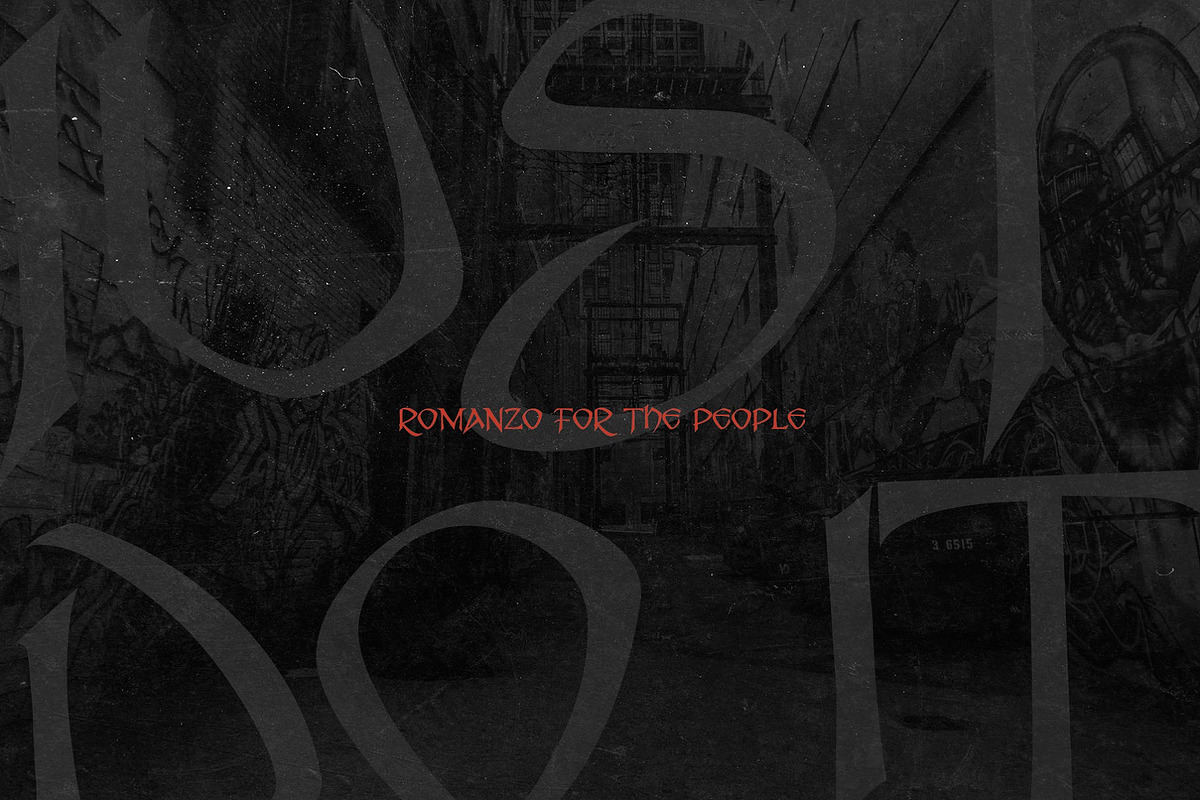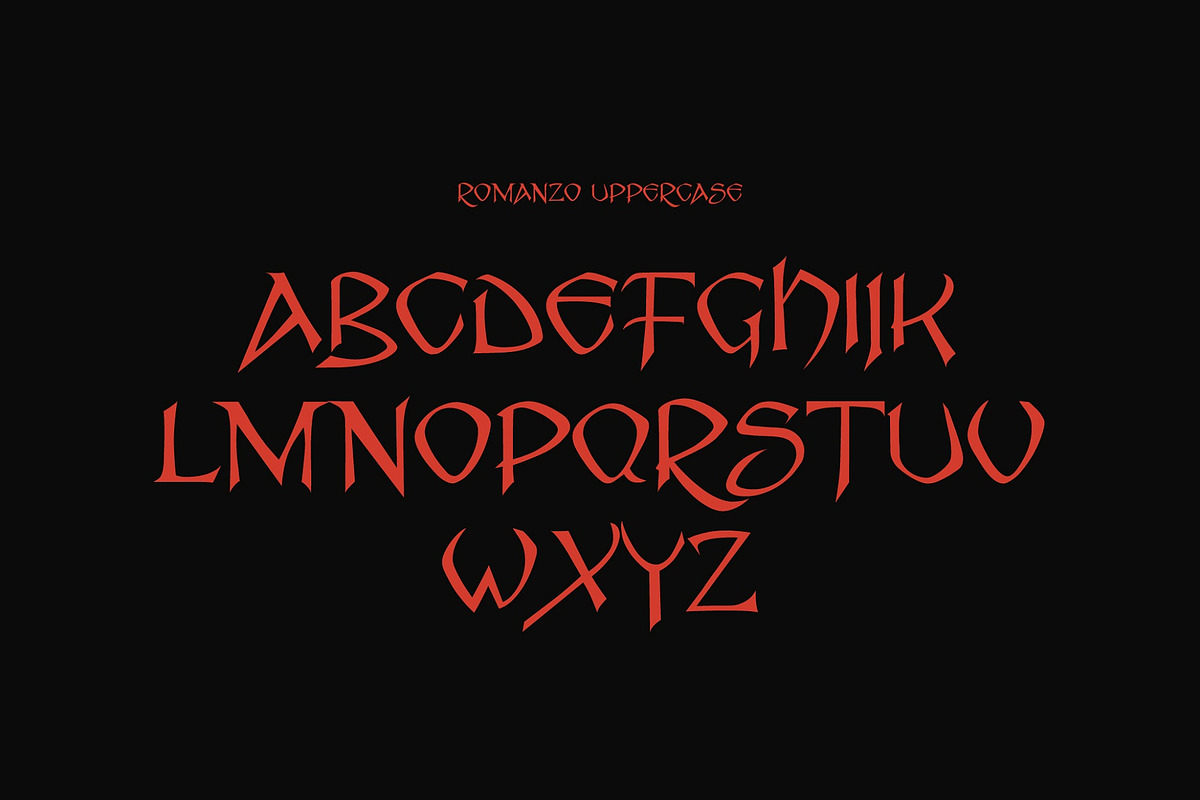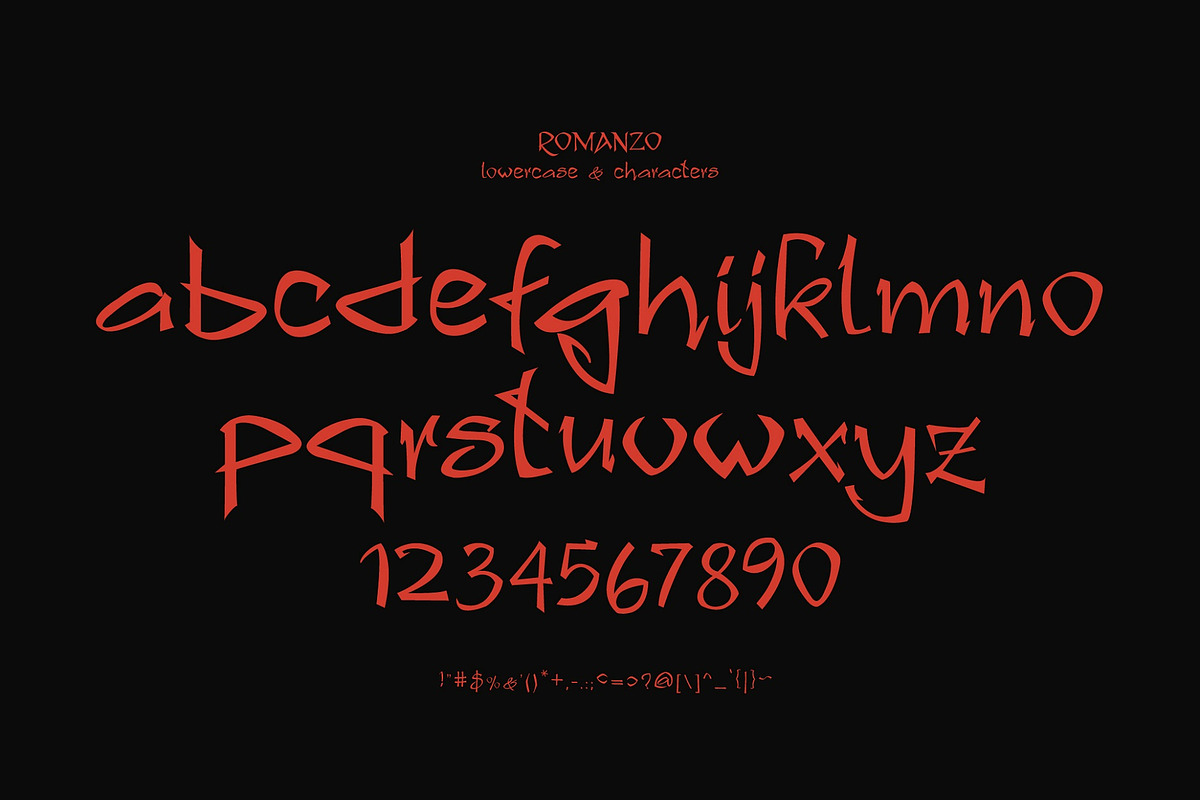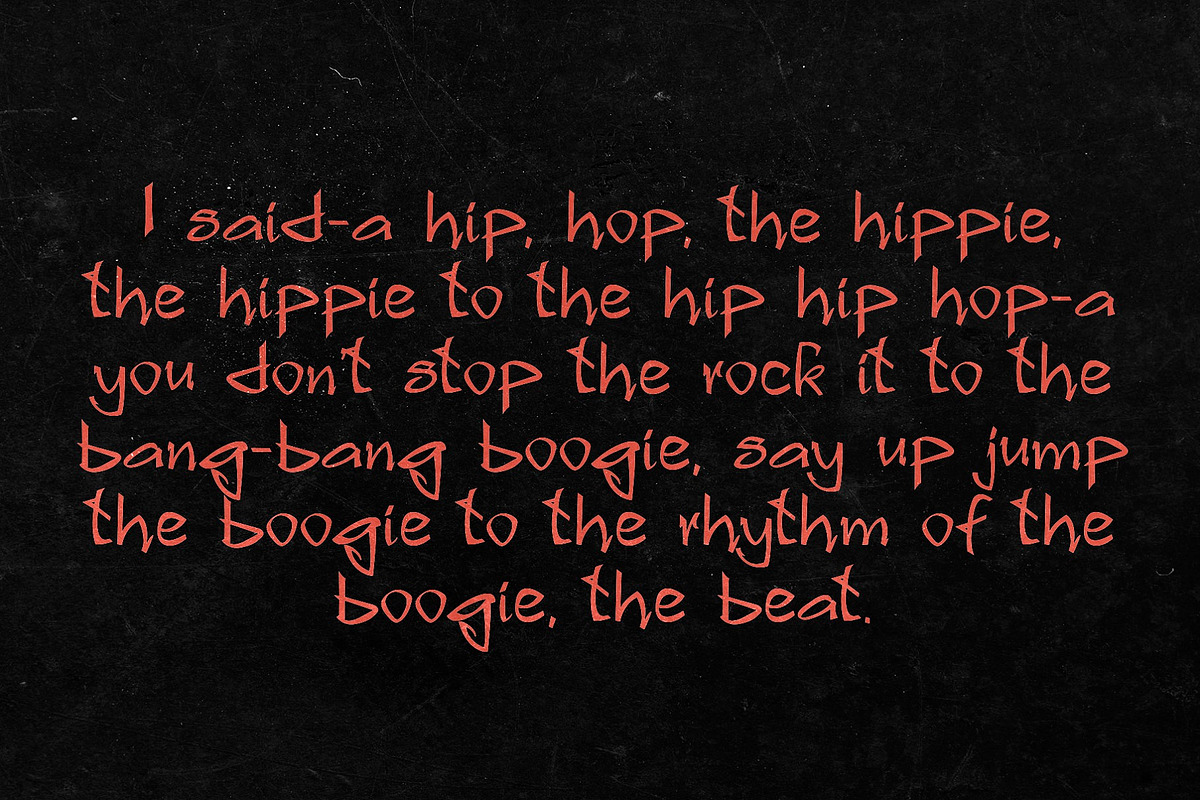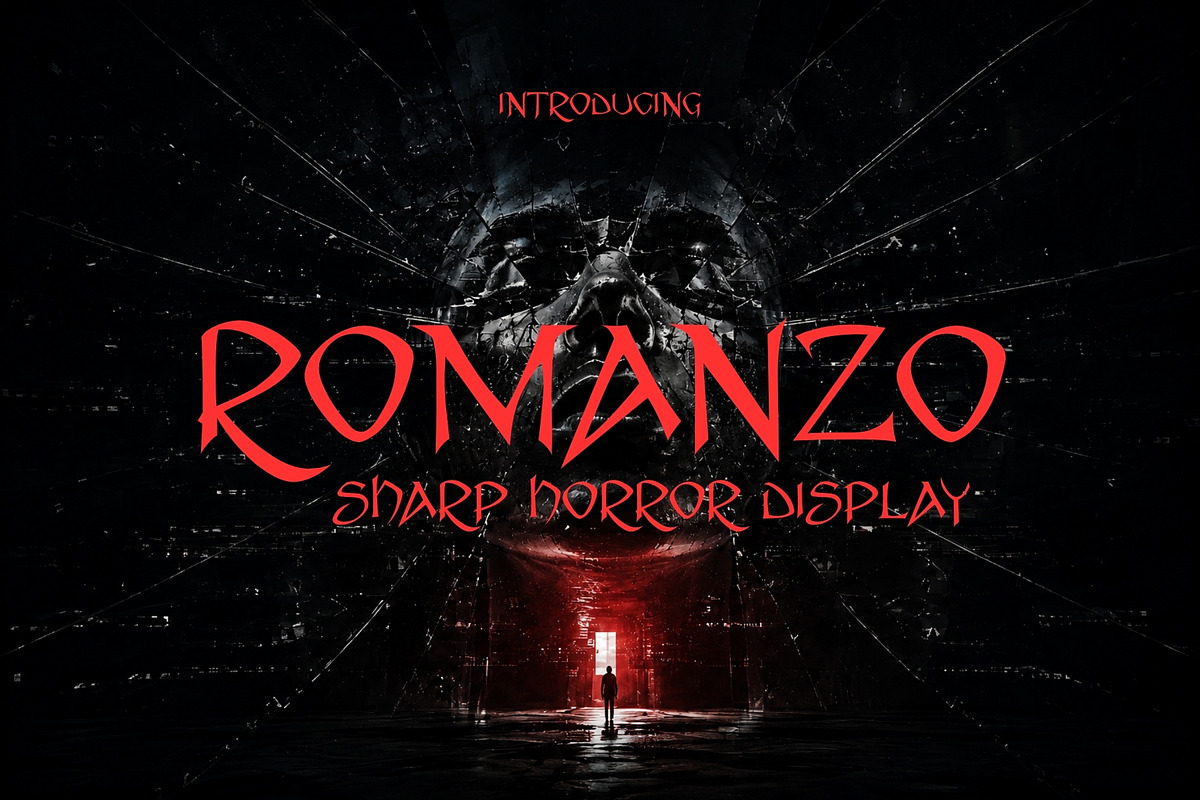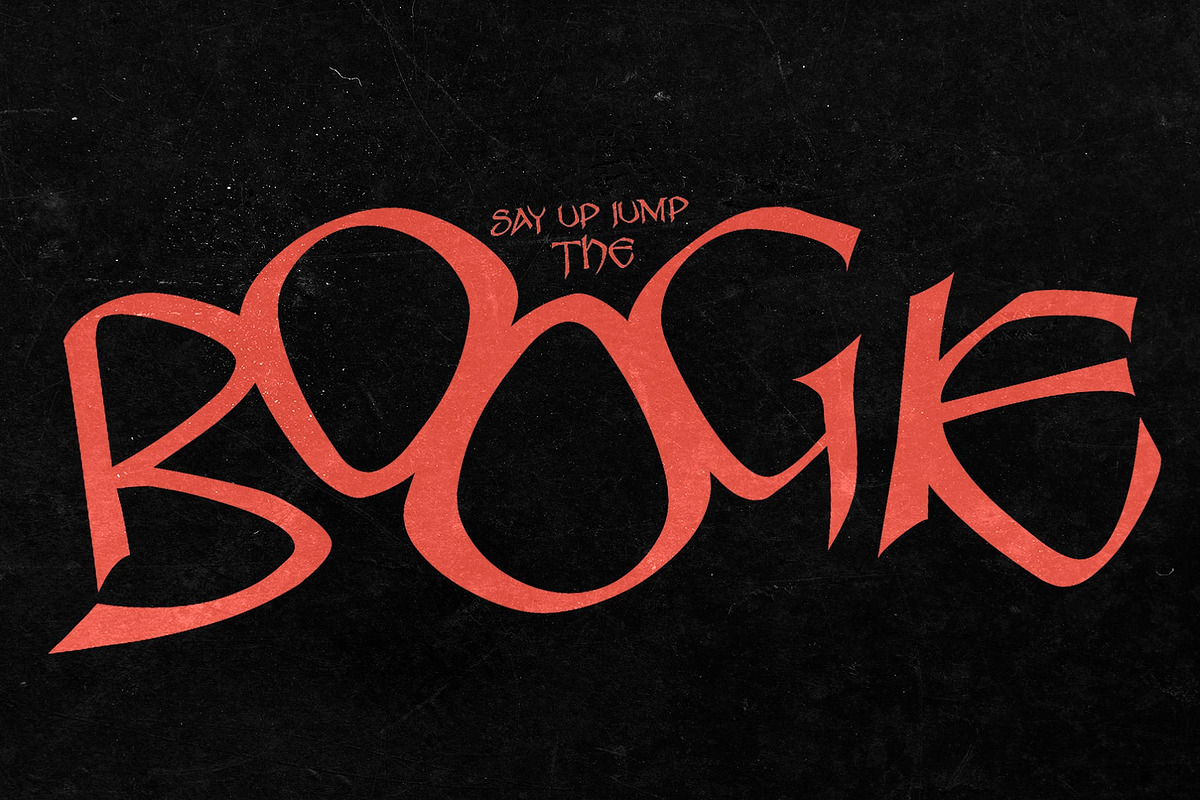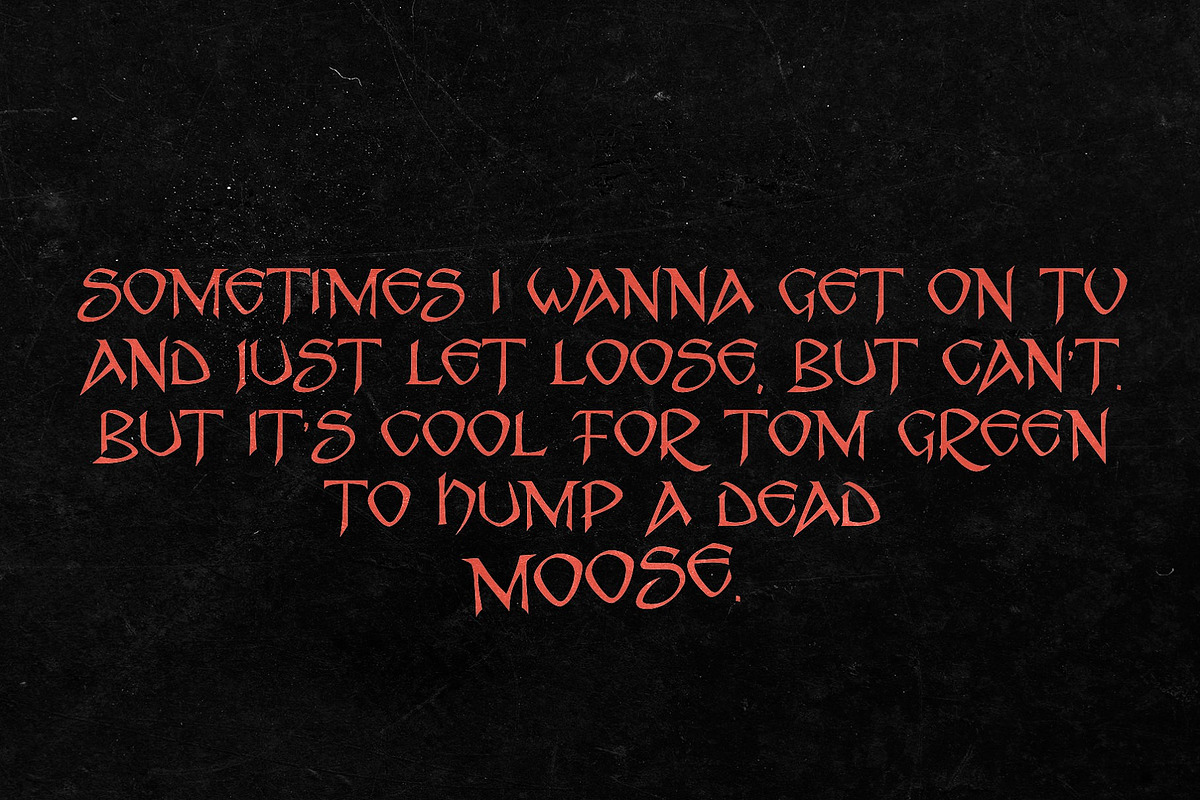
Romanzo - Creepy Display
Romanzo is a messy horror typeface perfect for scary design projects. You can use it to create memorable posters, flyers, movie titles, apparel, stickers, and album covers. Romanzo's creepy and unsettling letters will make your designs pop. Remember to add grungy textures for maximum effect.